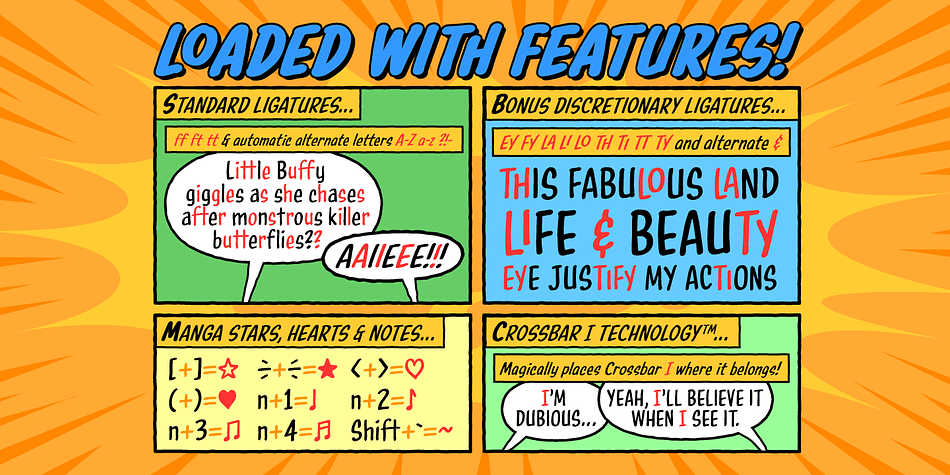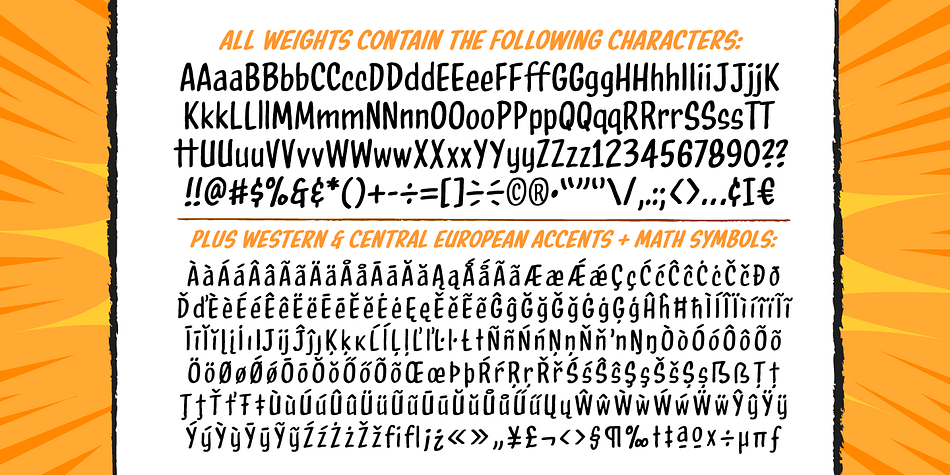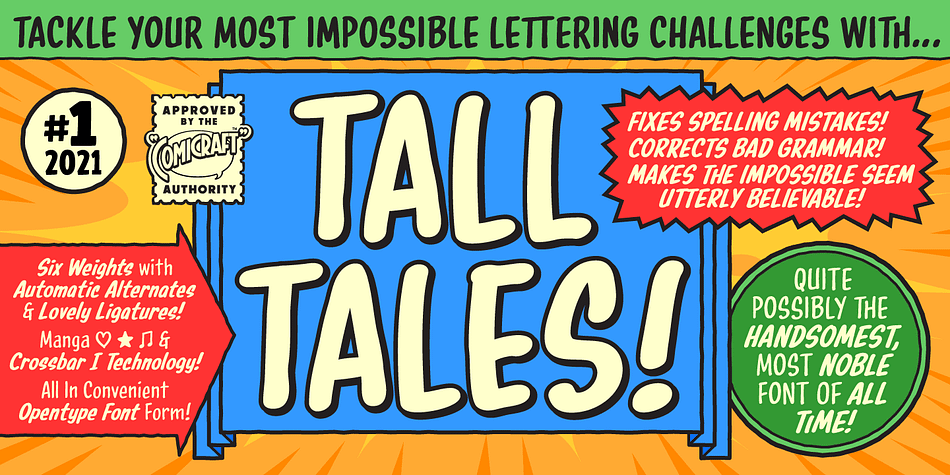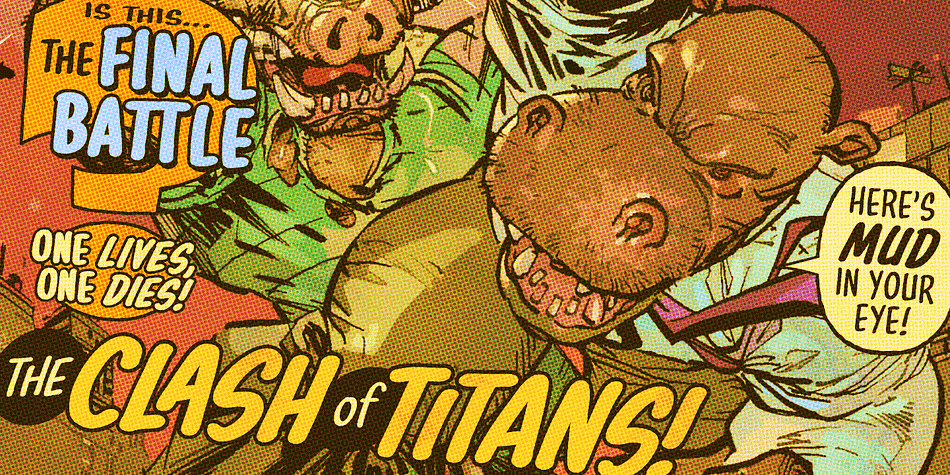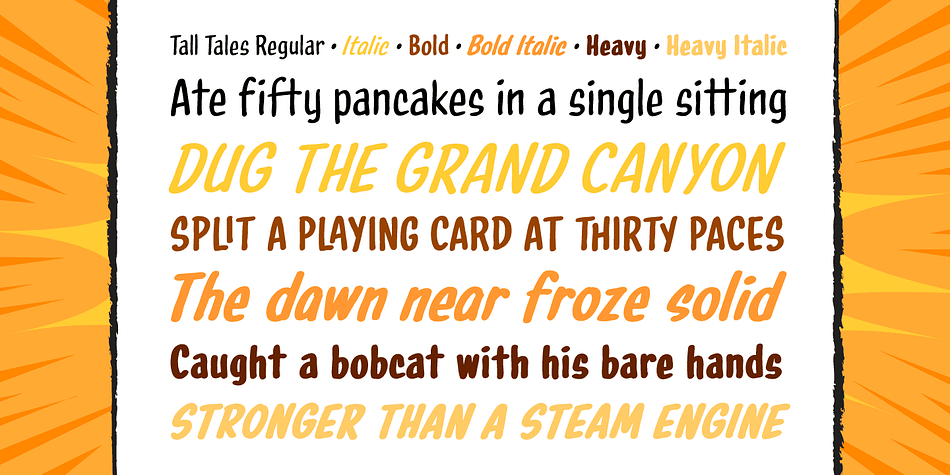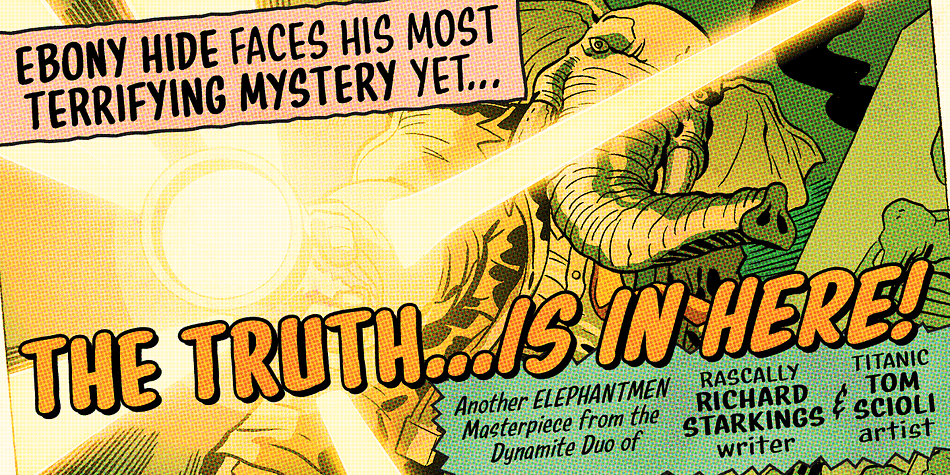
Designed by John Roshell, Tall Tales is a comic and hand drawn font family. This typeface has six styles and was published by Comicraft.
In a World where no stories are small stories…
In a Land where words need to be Bold, Meaningful and maybe even Italic…
Comes a font worthy of telling Marvelous Tales some thought Too Tall, Too Astonishing to be told…
And when those Untold Stories, those Astounding Tall Tales, are finally told…
THAT WORLD WILL NEVER BE THE SAME AGAIN!
From Visionary Font Director John Roshell and the Studio that brought you BlahBlahBlah, you must not miss TALL TALES!